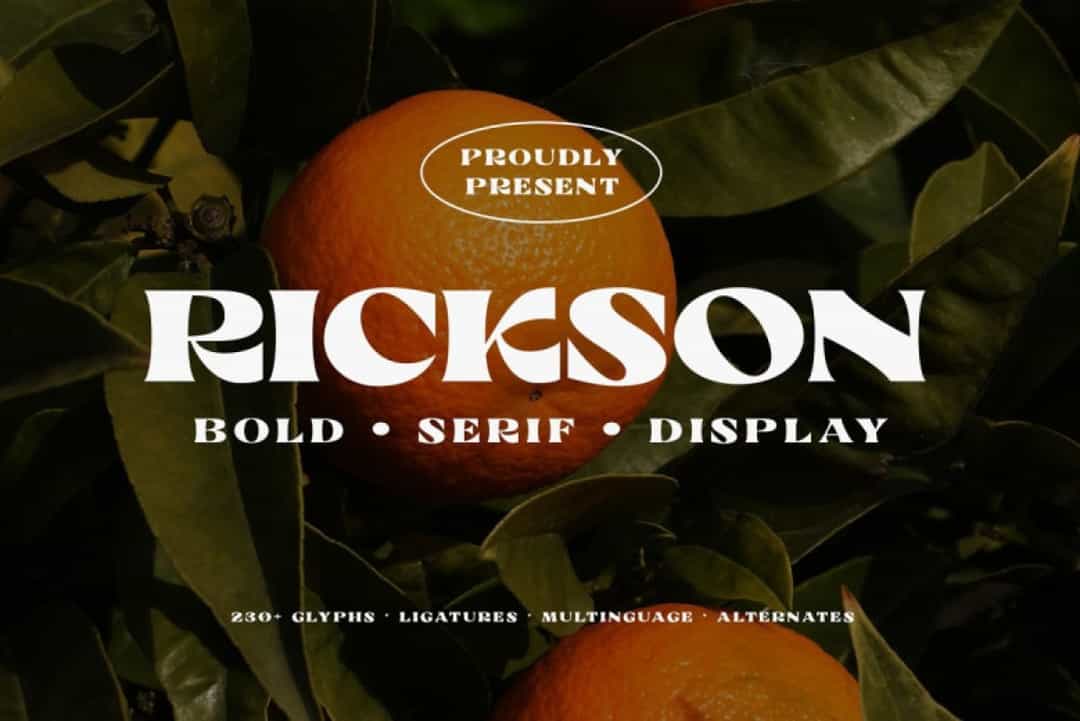
Rickson is a stylish bold serif typeface designed with a pleasing serif, inspired by newspaper headlines and fashion logos. You’ll get an elegant and slim appearance while making Rickson usable across various applications.